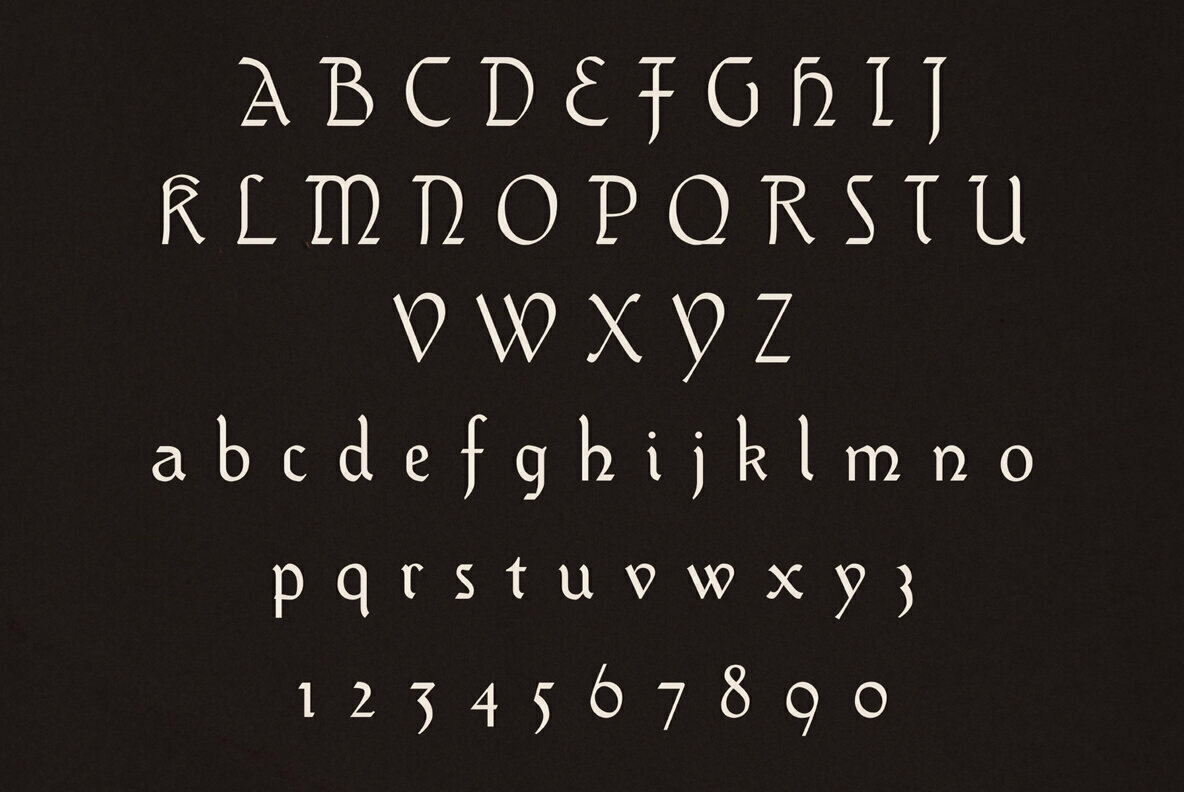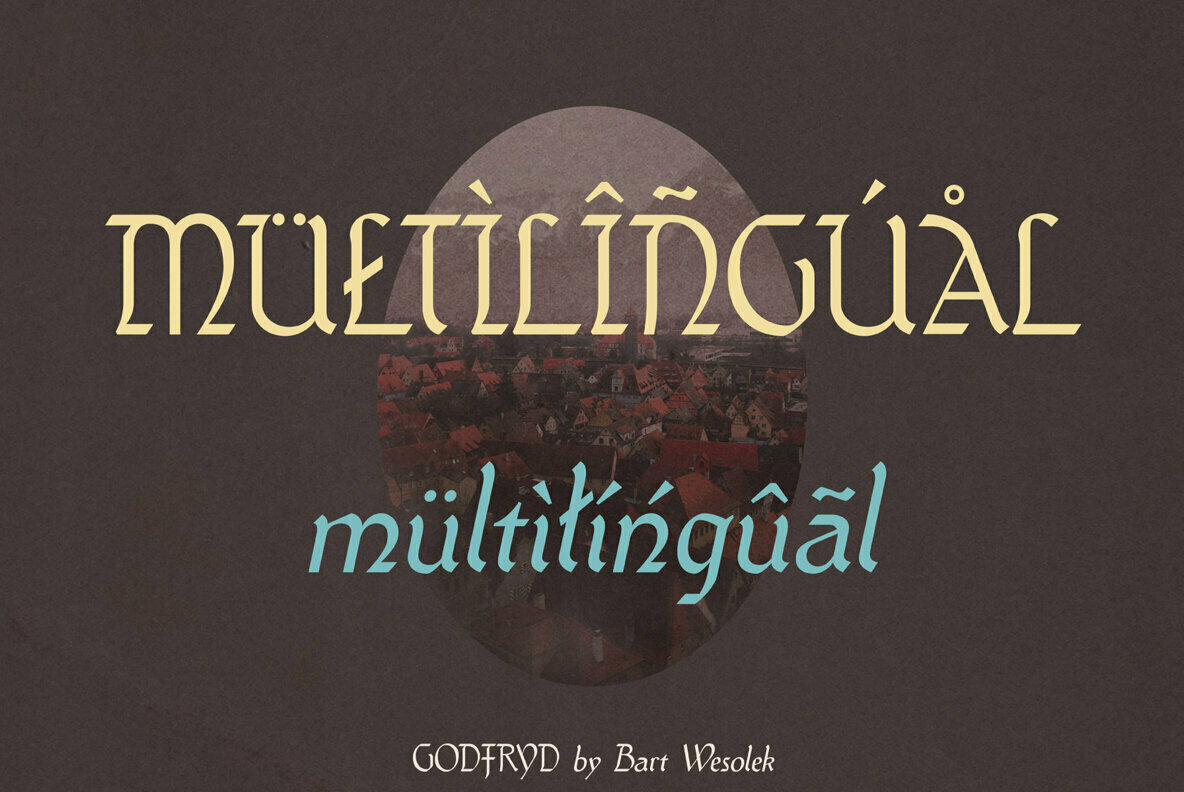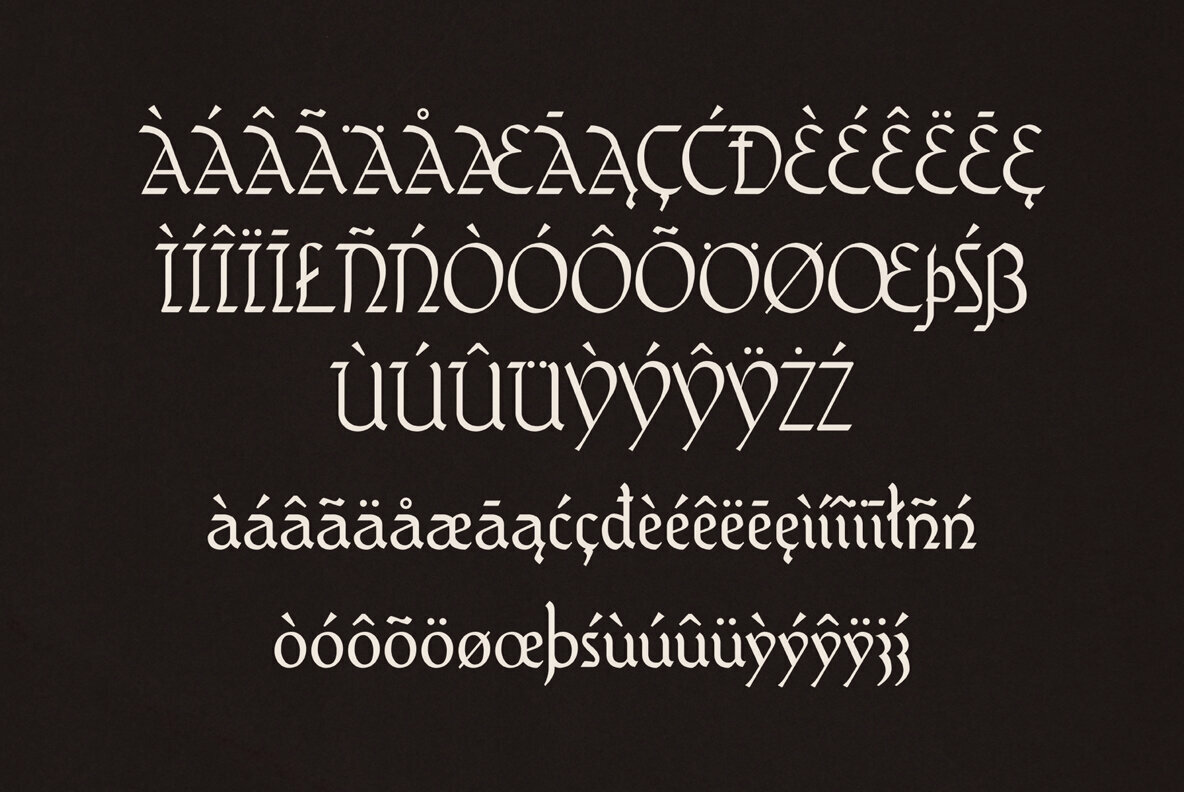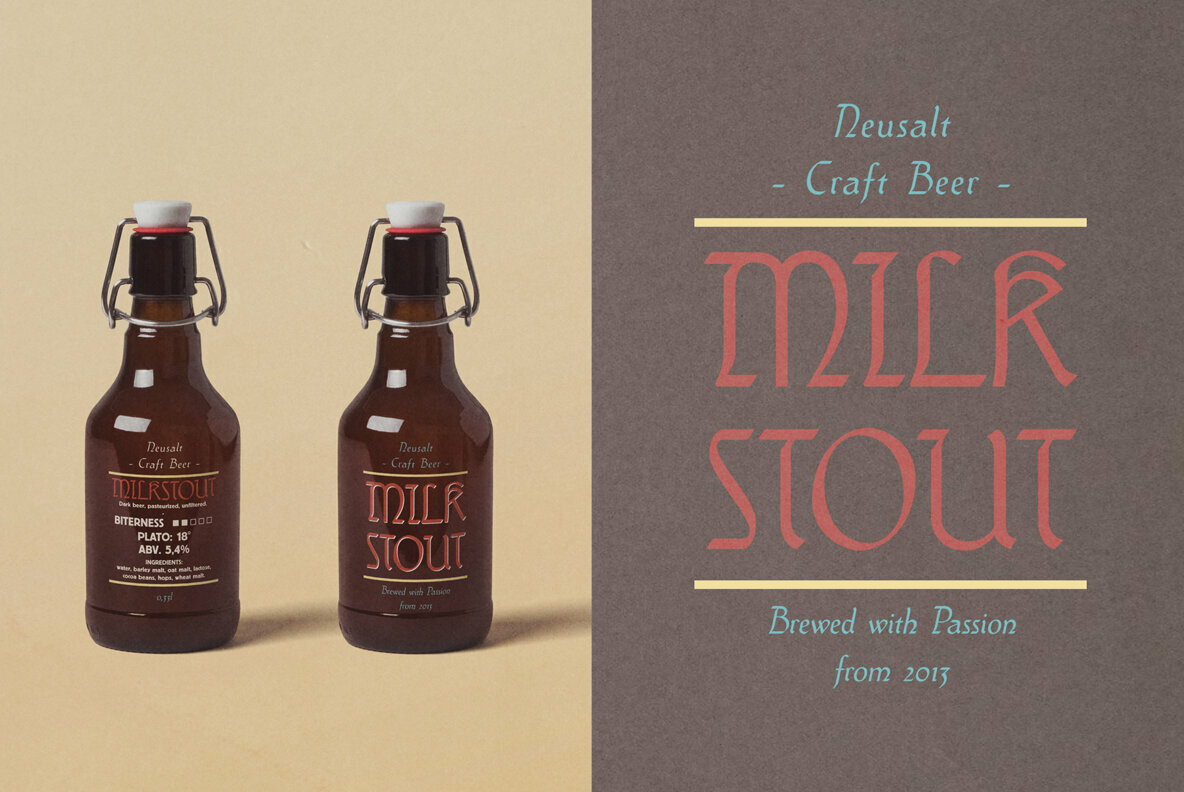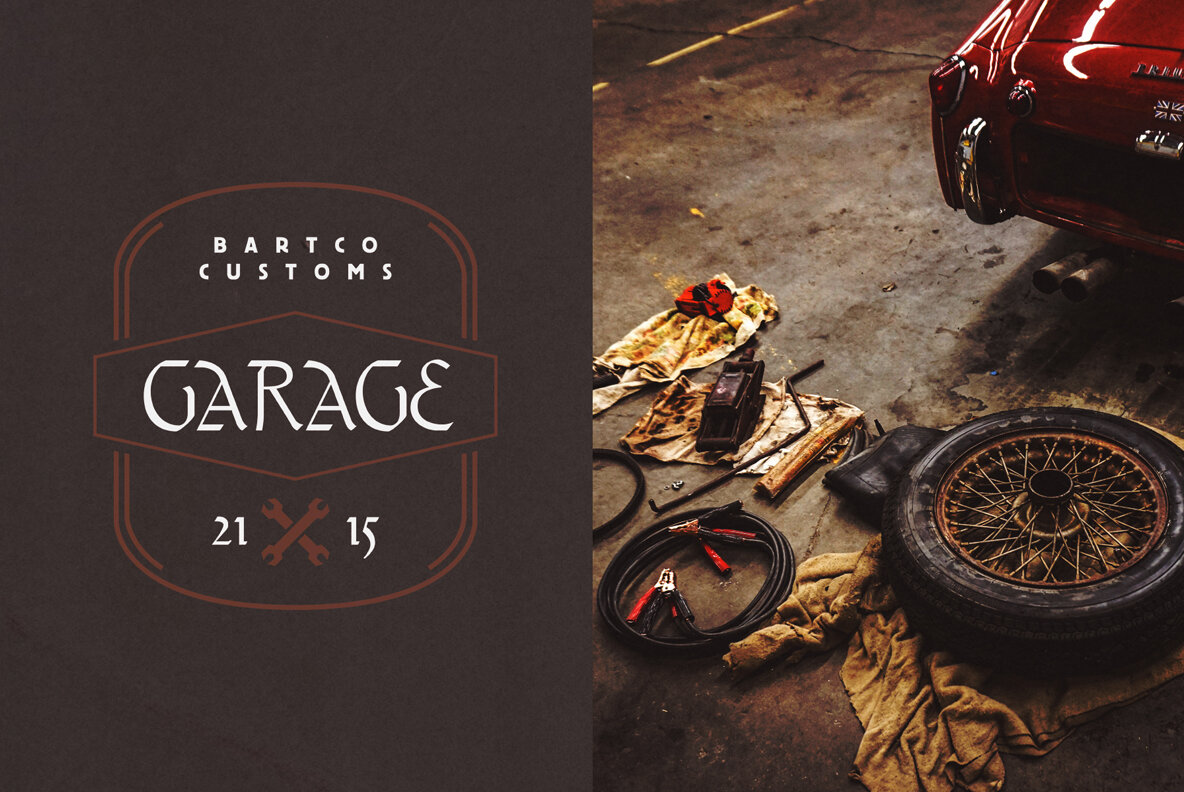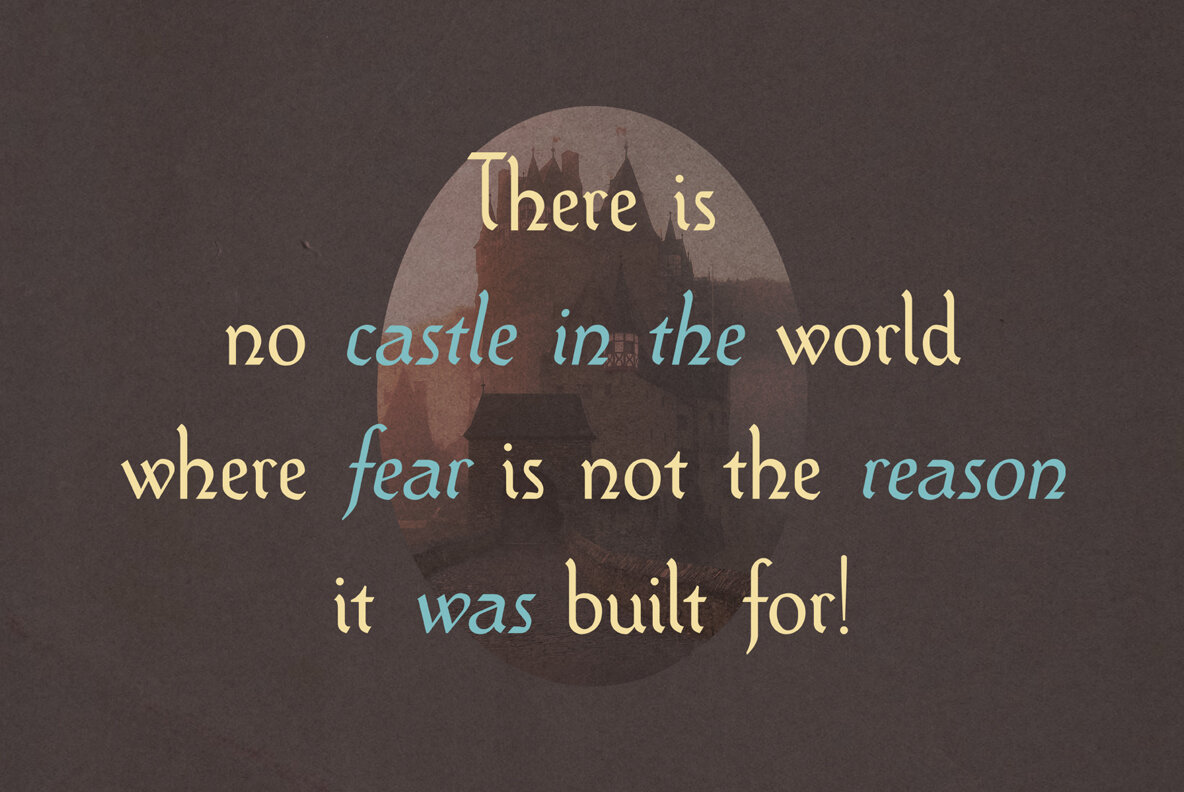
Godfryd Font
Godfryd Regular
Godfryd Kursiv
Gotfryd is a blackletter font based on classic medieval and serif fonts. Its style is a mix between modern retro medieval fonts from XX century. Godfryd is cool to mix with other sans and serif fonts for great branding, labels, letterings, logos and more.